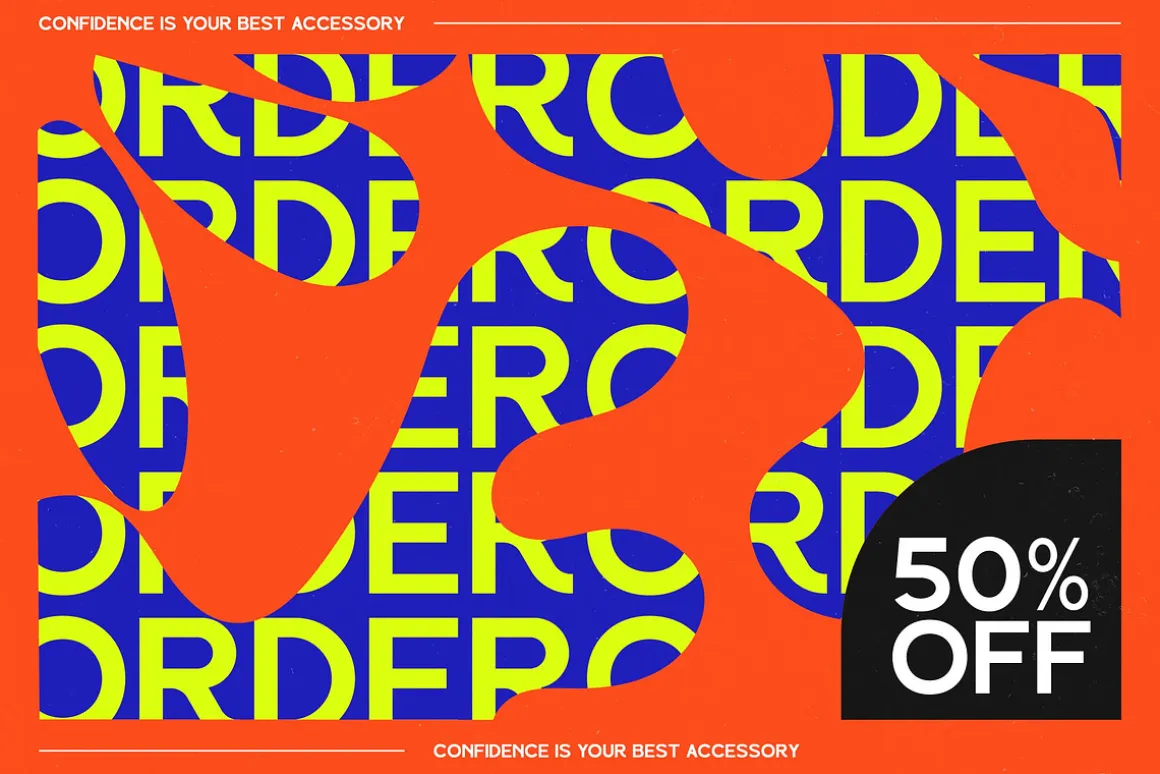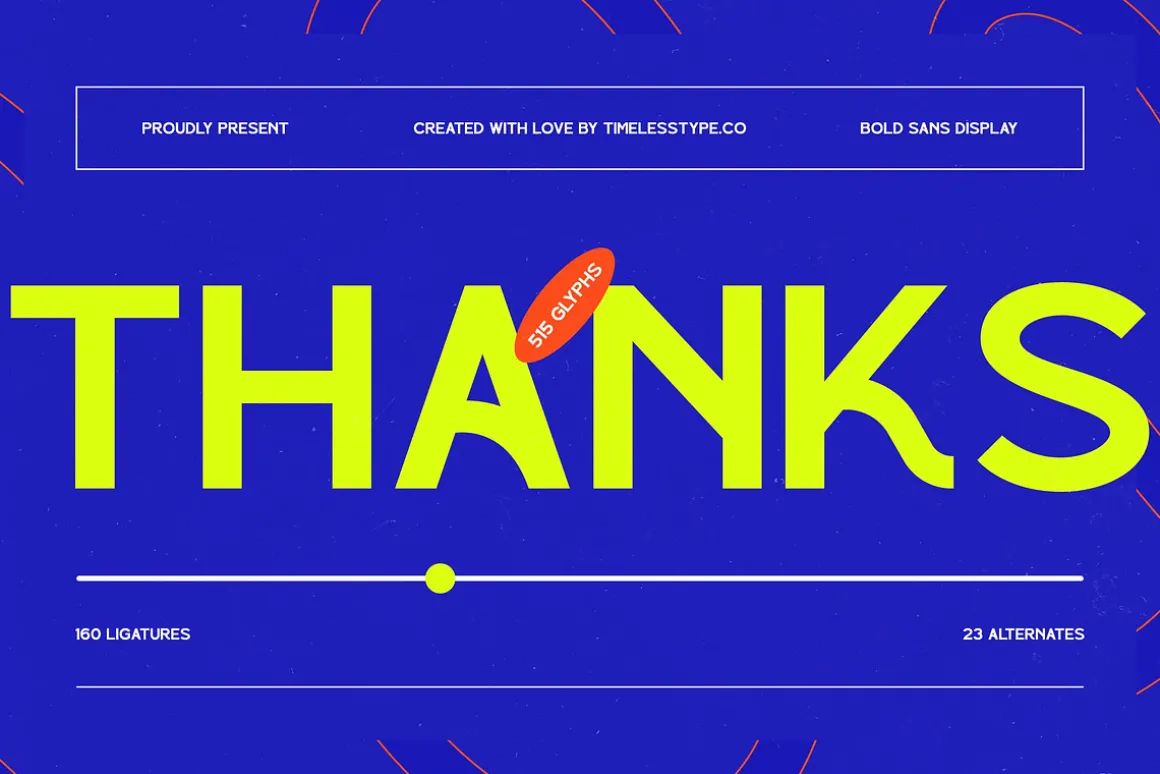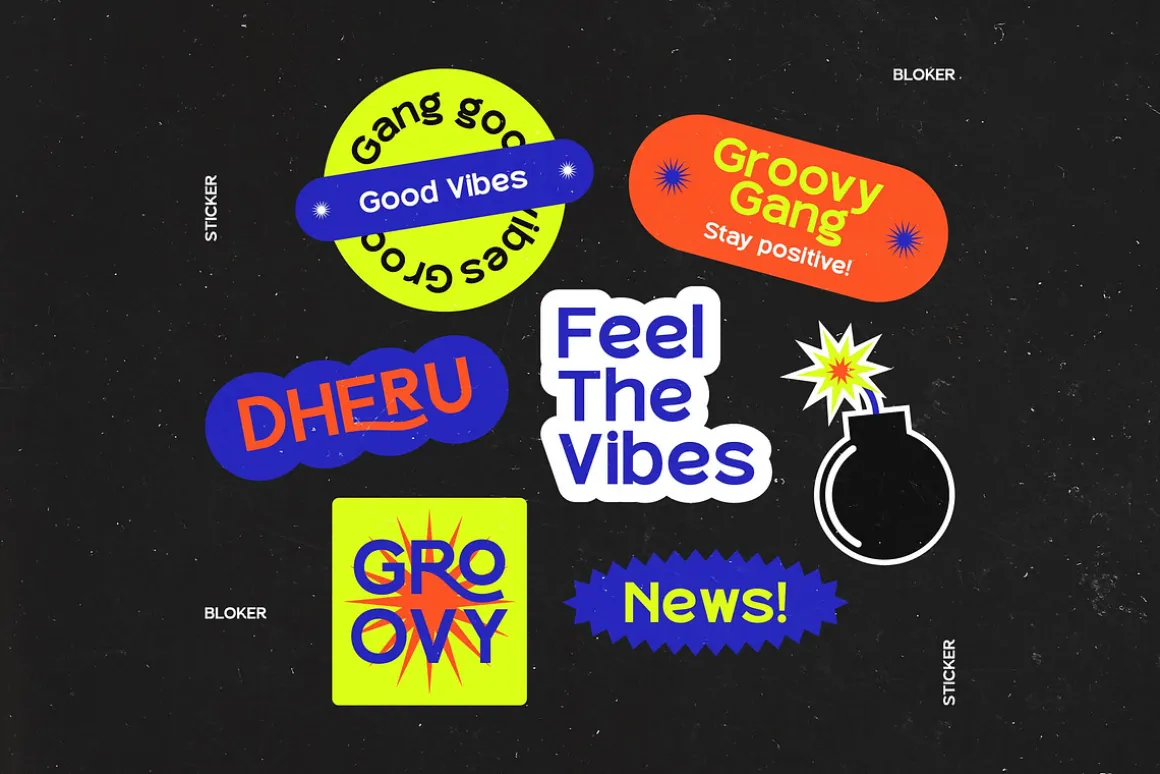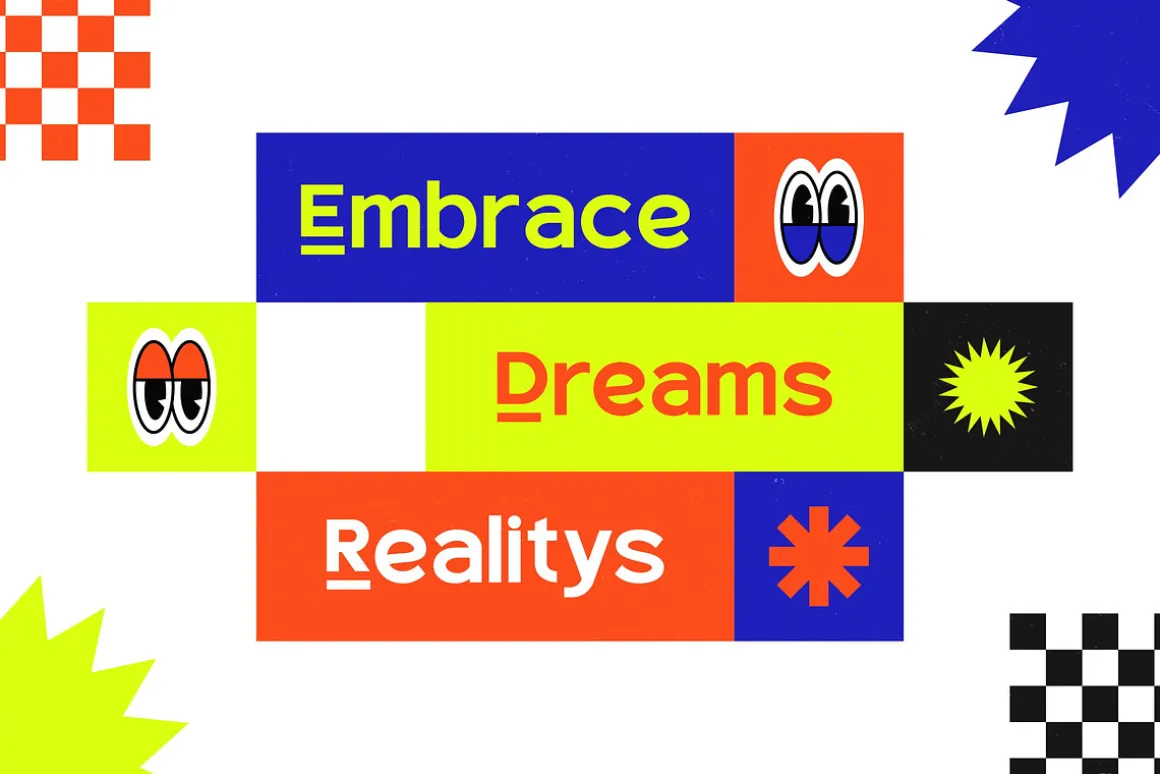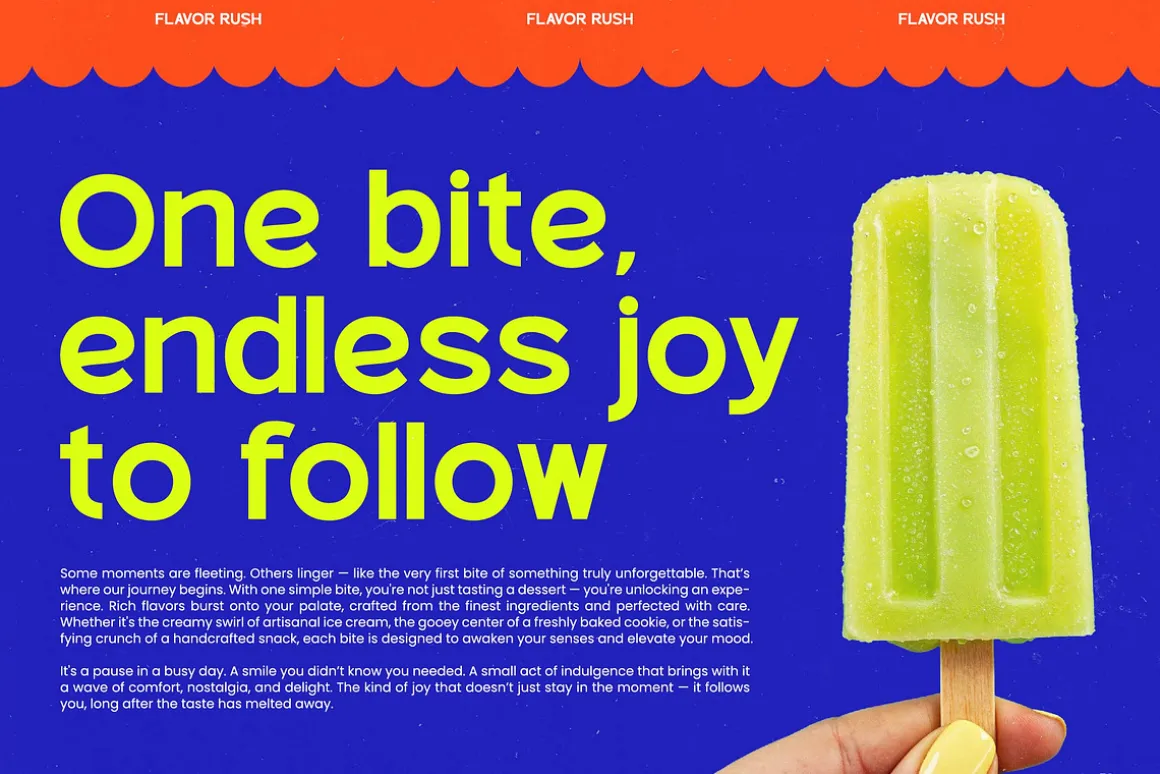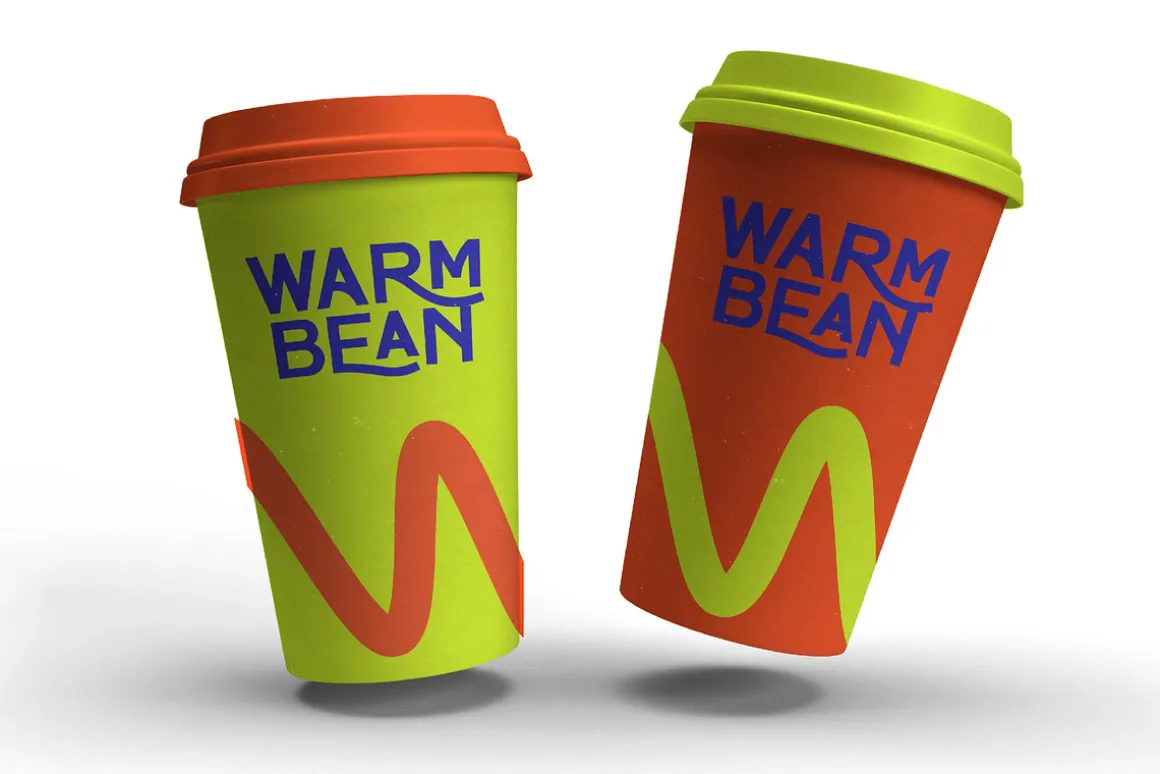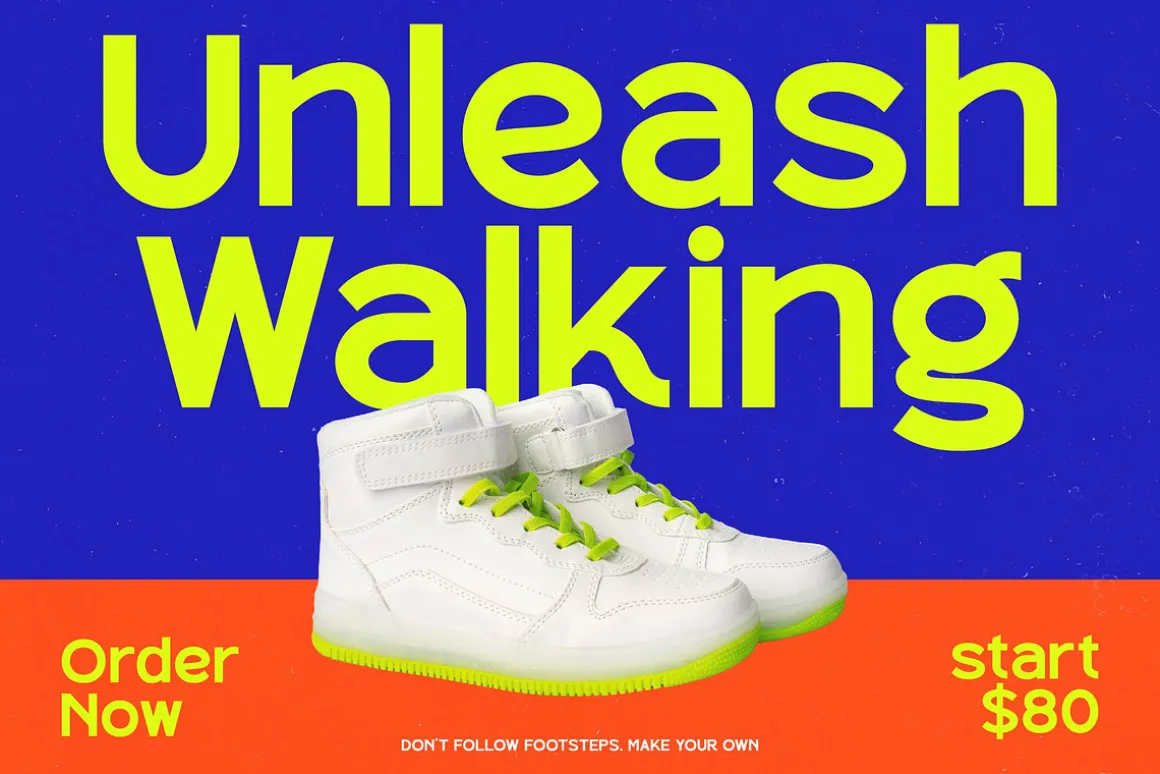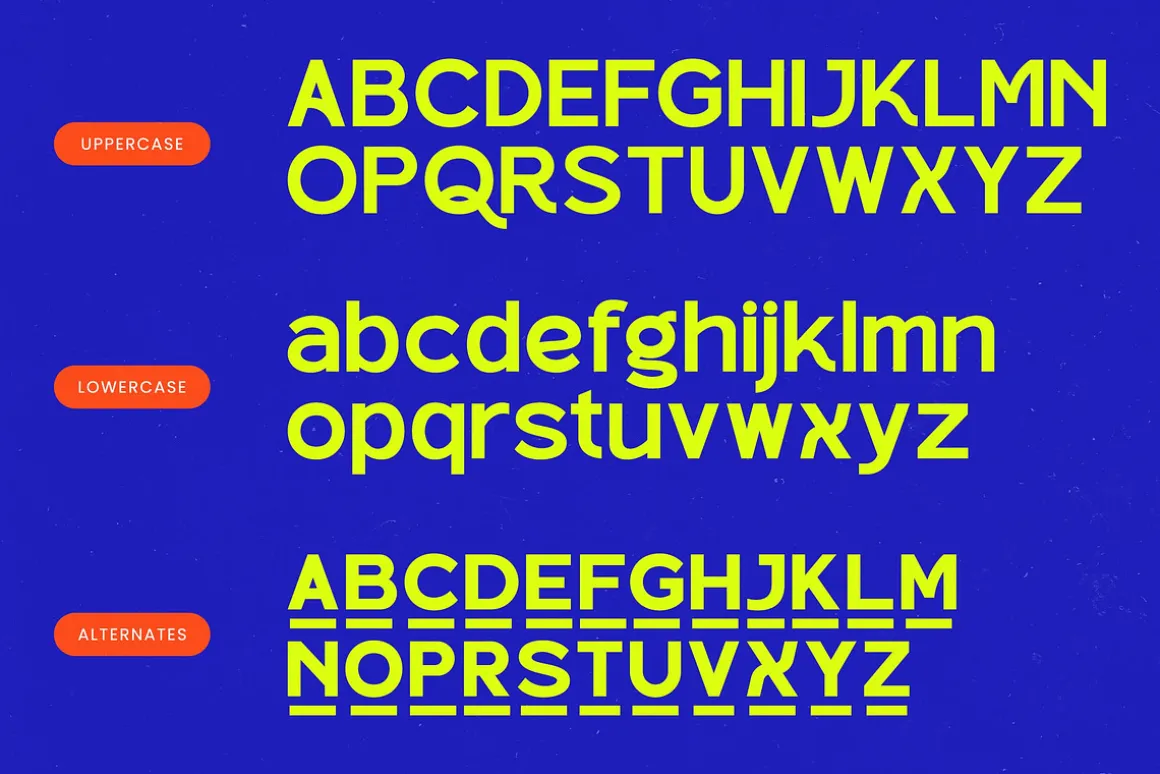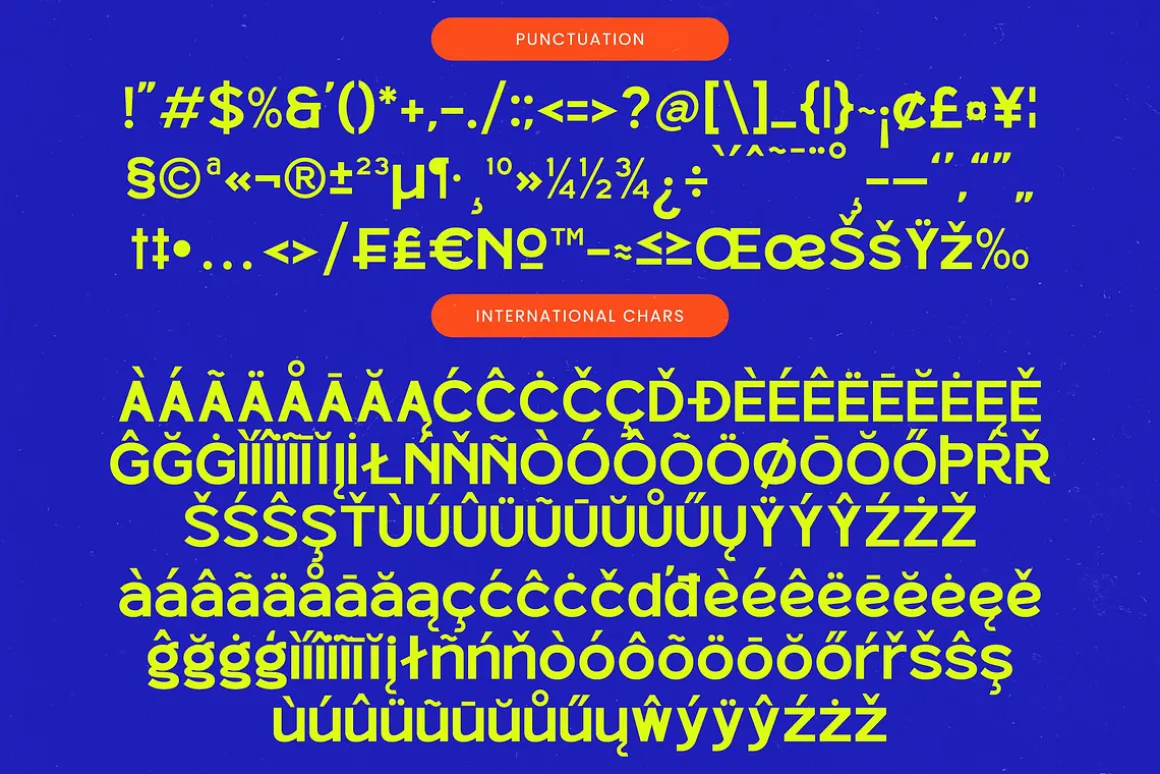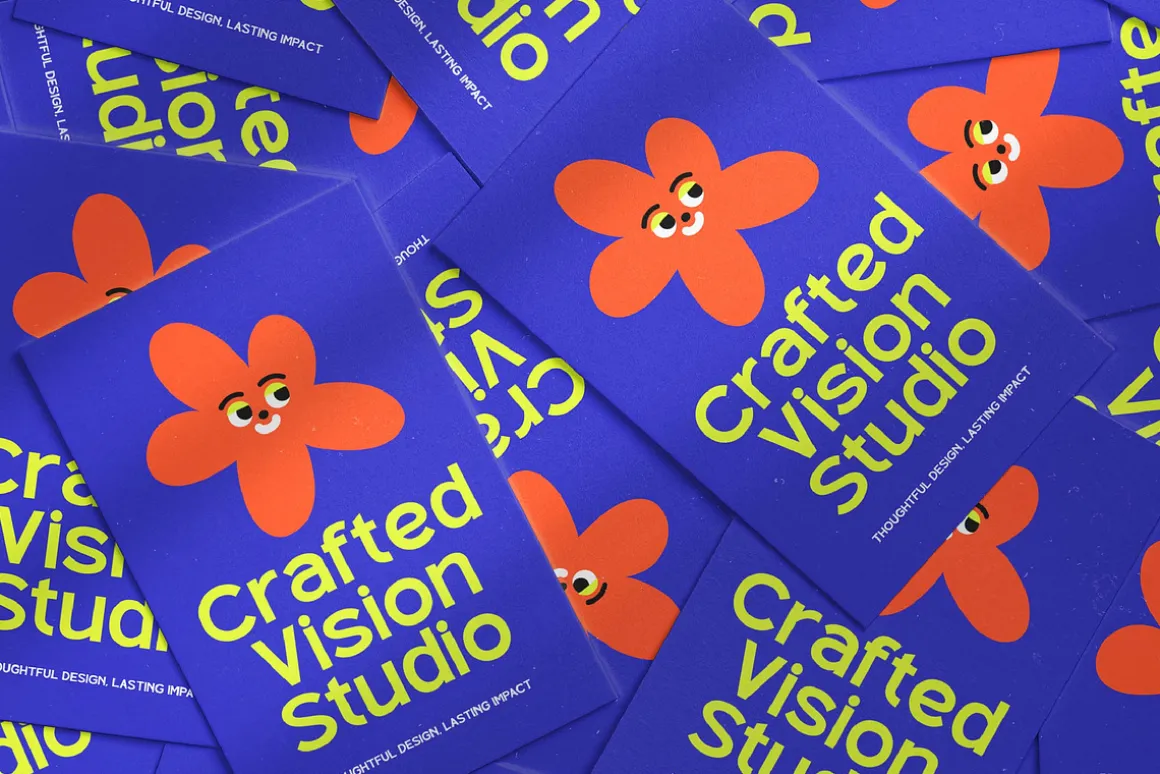
Unleash a new era of visual dominance with Bloker, a typeface designed to command attention and leave an indelible mark on every viewer. This font isn’t just a set of characters; it’s a statement of power and precision for the boldest creators.
Inspired by the raw energy of urban architecture and the rhythmic flow of modern street art, this face captures a unique intersection of heavy geometric blocks and fluid, sweeping connections. Its atmosphere is one of unyielding strength paired with a surprising, sinuous grace that makes every word feel like a custom piece of lettering.
With its thick, confident strokes, this modern serif display style offers a level of luxury typography that redefines the high-contrast serif aesthetic for a contemporary audience. It functions as a premier editorial font that guarantees an immediate branding impact for projects that refuse to be ignored in a crowded marketplace.
Staying ahead of the modern serif trend, this typeface embraces the shift toward editorial display fonts that prioritize unique visual identity over generic legibility. It is a prime example of character-driven typography that taps into the current demand for high-impact, statement-making designs in the digital and physical realms.
This versatile powerhouse is the ultimate choice for high-end logo design and comprehensive corporate branding suites. Whether it is used for bold editorial headlines, striking product packaging, avant-garde wedding invitations, or high-concept fashion lookbooks, it delivers a consistent and professional edge.
The collection is packed with over 160 unique ligatures and numerous alternates that allow for endless customization and creative flair. It also includes comprehensive multilingual support and a wide range of international characters, ensuring your message reaches a global audience with effortless style and technical perfection.